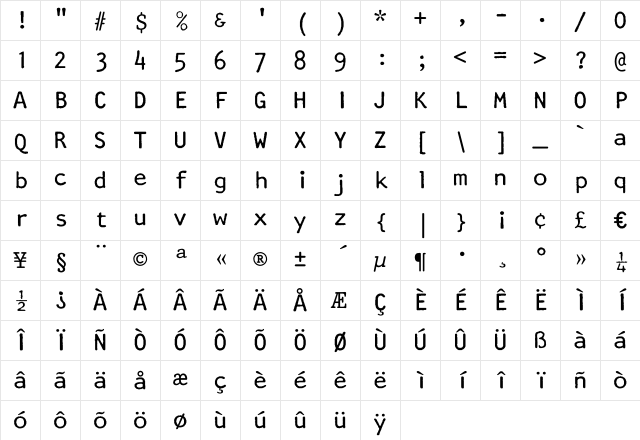
Complete Artisan12 Regular glyph index. Displaying only characters natively supported by Artisan12 Regular font.
Artisan12 is a composed and adaptable typeface that performs quietly and consistently across a wide range of design contexts.
Who designed the Artisan12 Regular font?